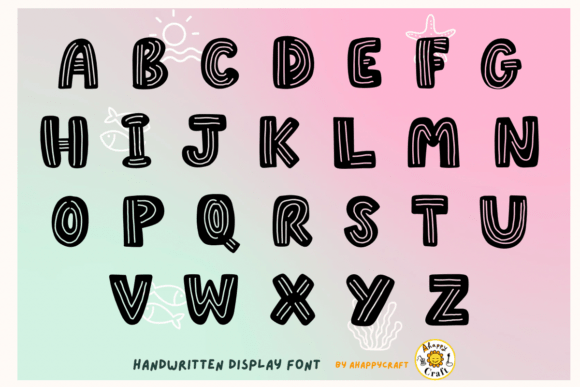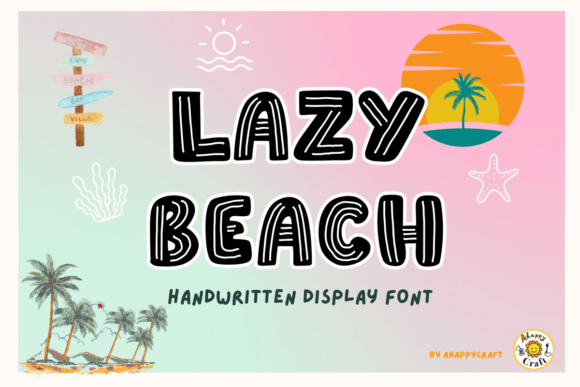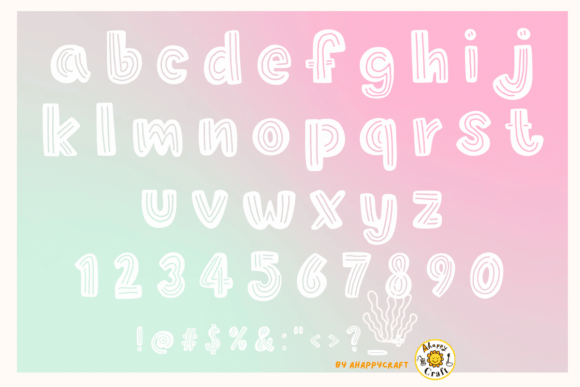
Lazy Beach Font
Introducing Lazy Beach, a cheerful display font rendered in a charming doodle style. This exuberantly bold typeface reimagines leisurely beach scribbles and transforms them into playful and whimsical characters. Its unmistakable hand drawn qualities channel creativity and uniqueness, creating a visual feast that’s instantly appealing. An endearing blend of modern calligraphy and comic font, Lazy Beach exudes quirkiness at every curve and contour. It’s ideal for injecting fun into your summertime or vacation projects, and it shines when applied to printed mediums like shirts, mugs or bags. Crafted with a full English alphabet, numbers, and symbols, it comes in both OTF and TTF format. Experience the delight of digital typography with the Lazy Beach font- your go-to choice for a vibrant, colorful expression in graphic design, digital downloads, lettering, scrapbooking, Procreate, and more. Happy creating! Thank you